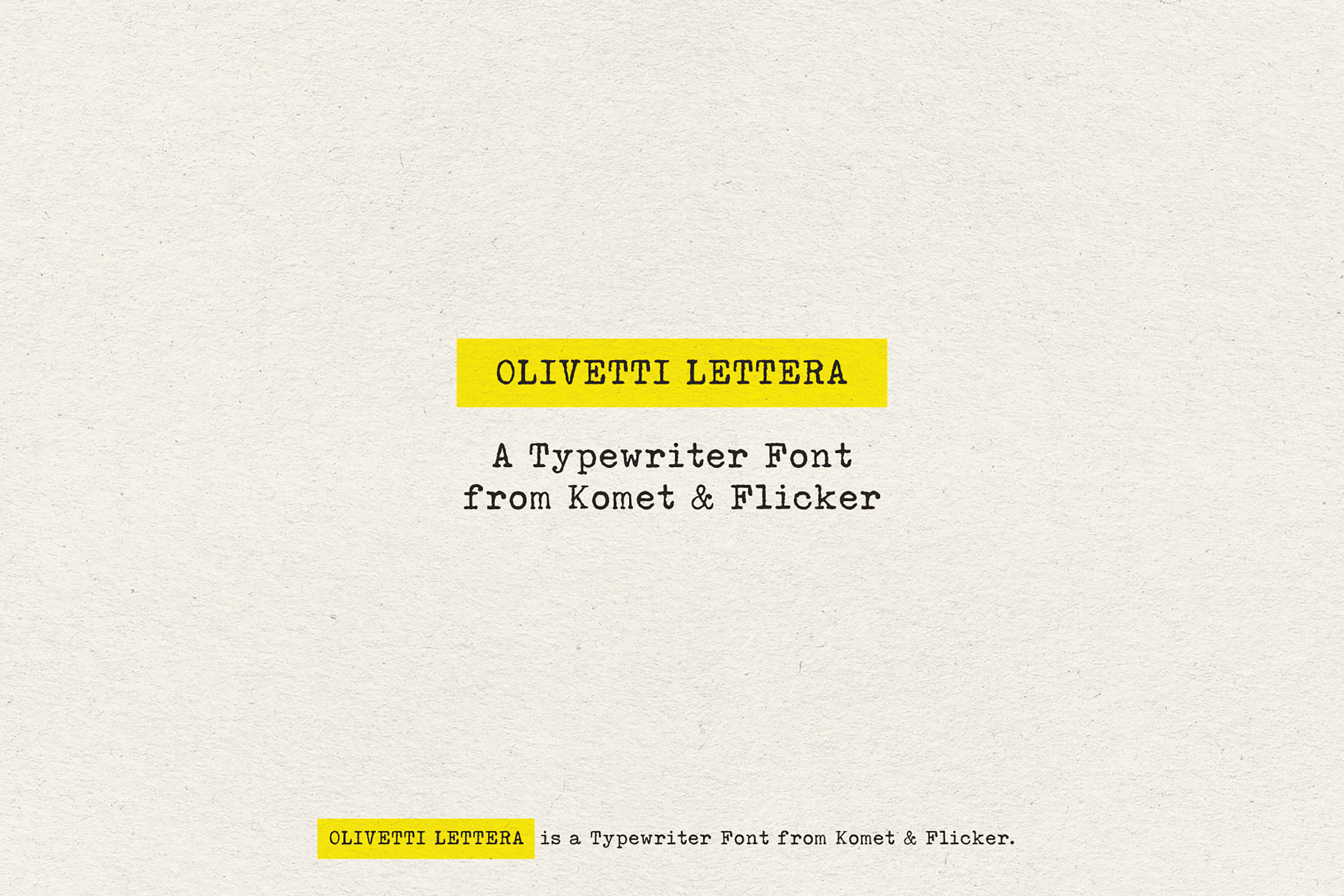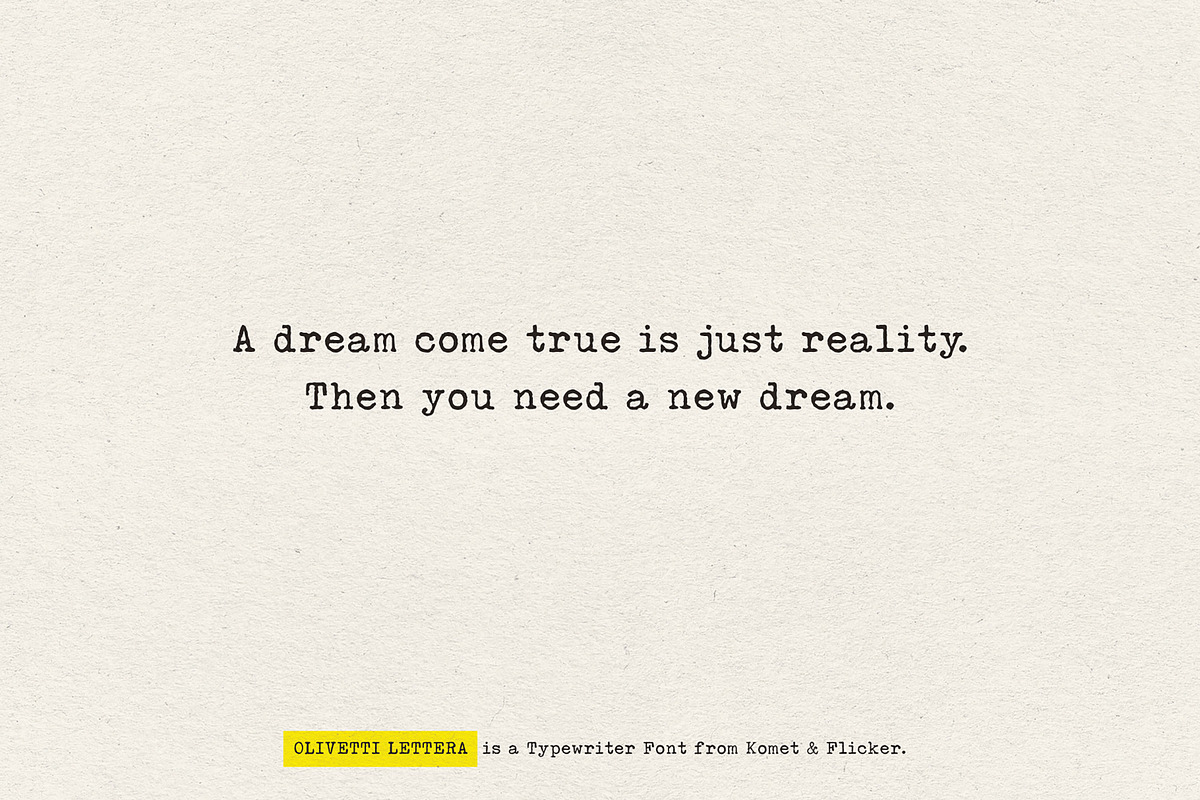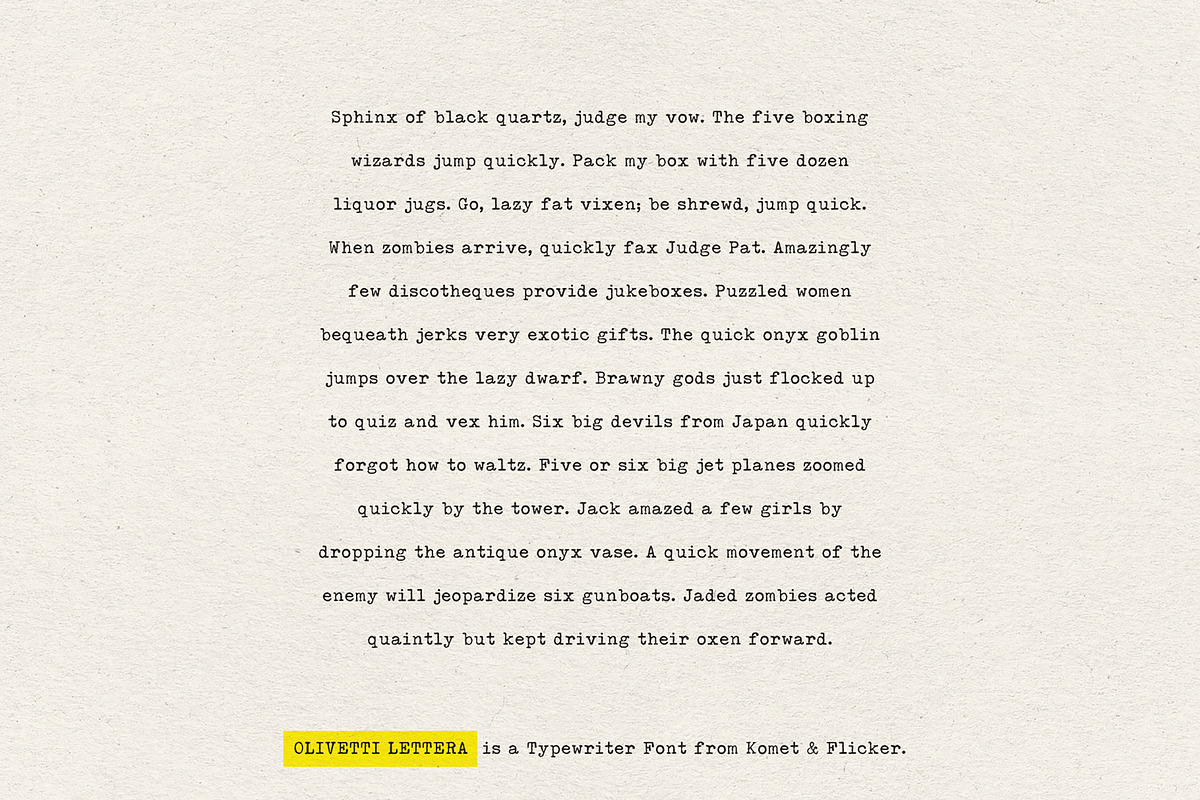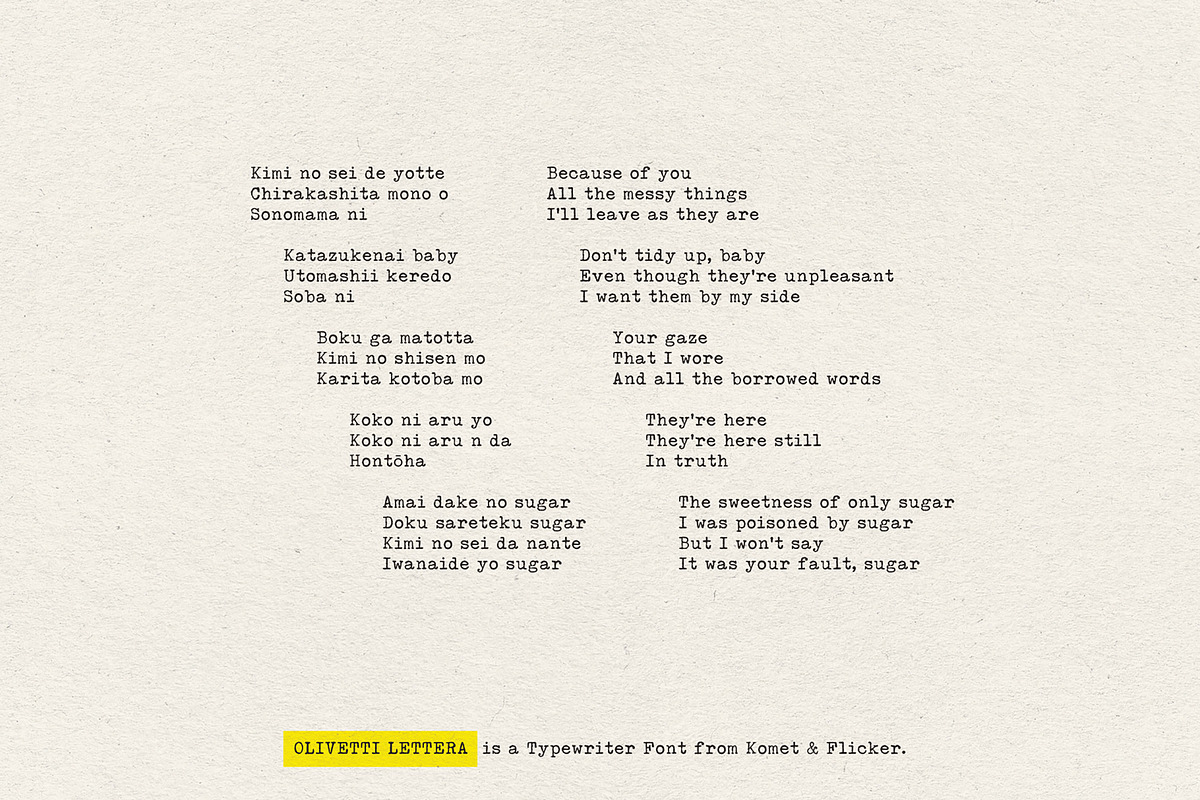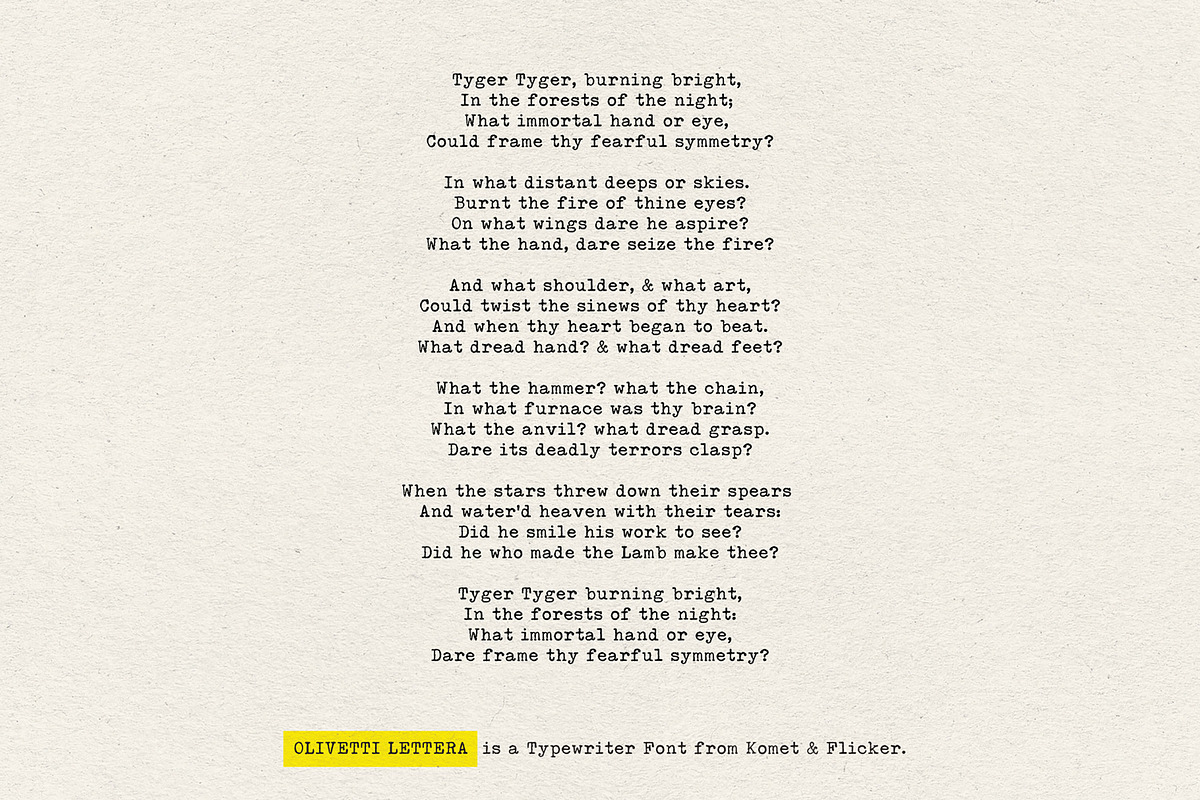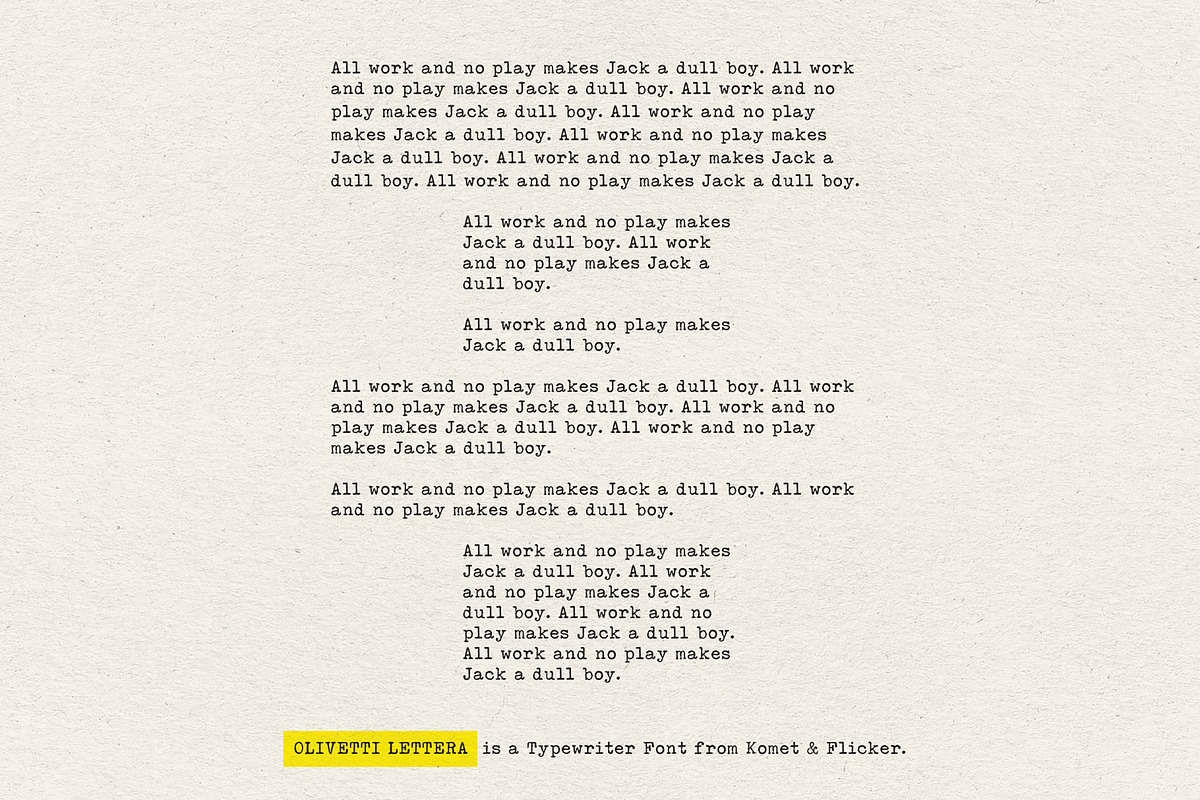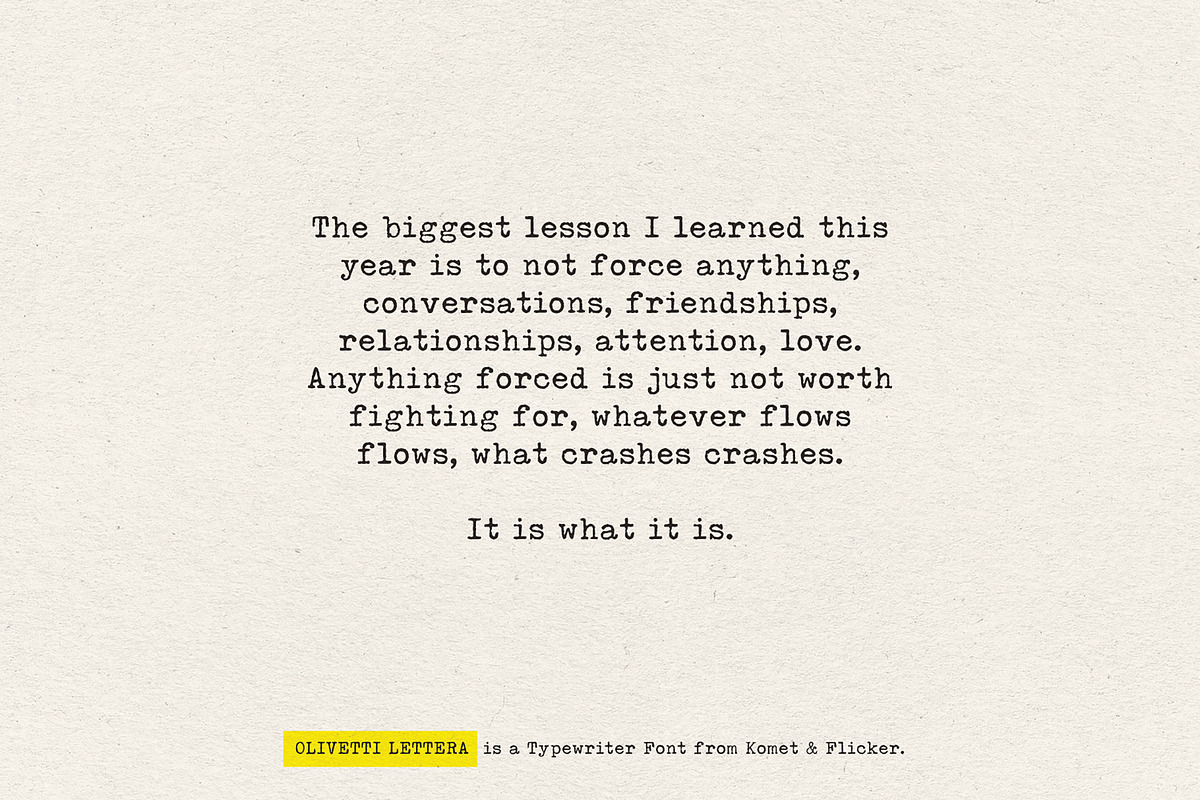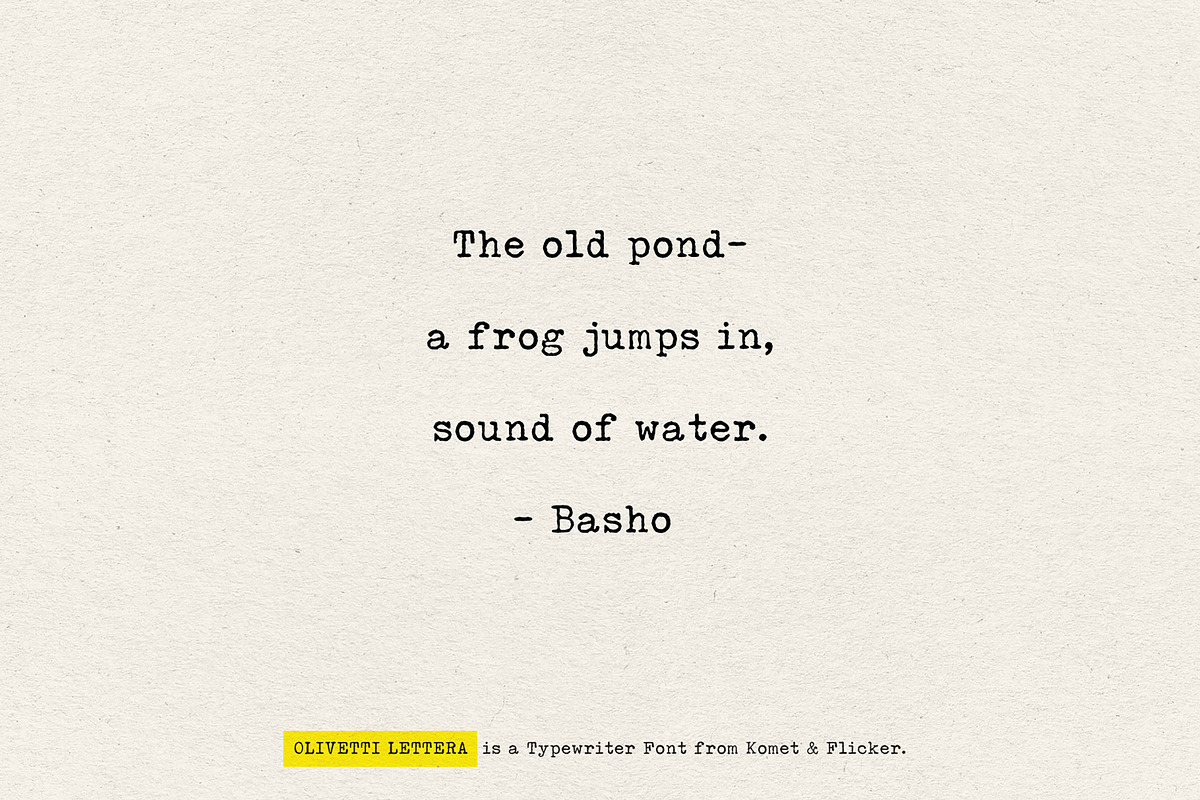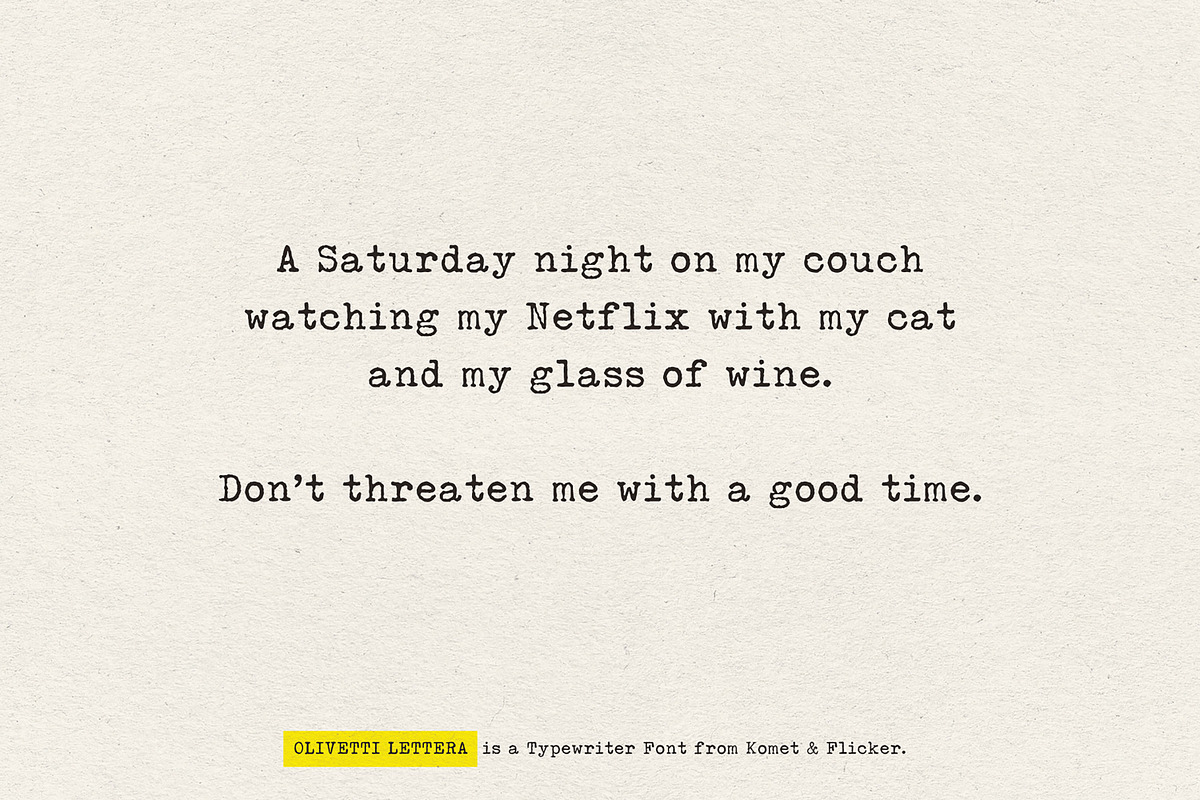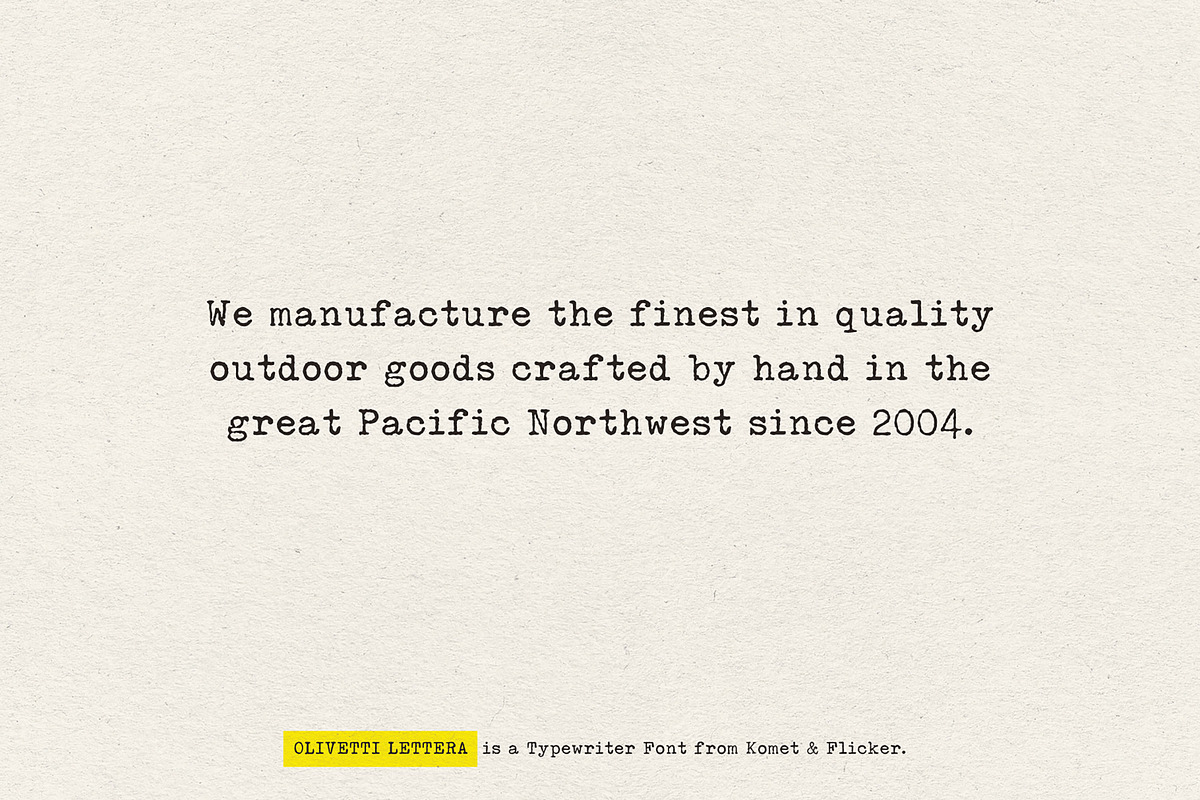
Olivetti Lettera - A Typewriter Font
Olivetti Lettera is a serif font inspired by the timeless charm of the Olivetti Lettera 35 typewriter. Crafted to capture the mechanical elegance and rough tactile imperfection of vintage typewriters, this font delivers an authentic analog feel with every keystroke.
Bring the rhythm of a vintage typewriter to your digital pages with Olivetti Lettera – a font that clicks, clacks, and carries the spirit of analog writing into the modern world.